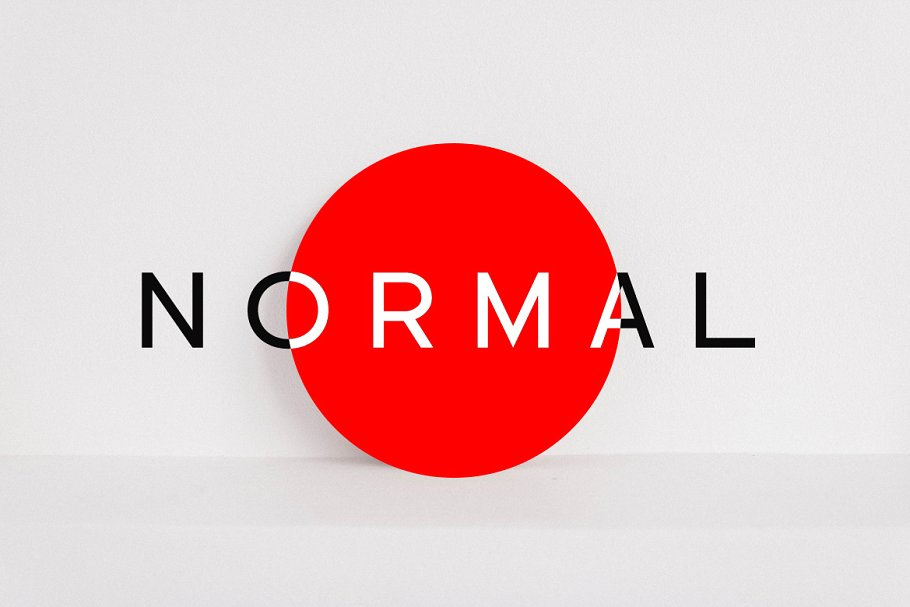
Normal Font
Normal Font is perfect for everyday business communications, standard corporate documentation, reliable office environments, practical service providers, straightforward consulting firms, and dependable professional organizations. Its balanced character makes it ideal for accounting practices, administrative services, general contractors, standard healthcare providers, regular educational institutions, and any project requiring trustworthy reliability with unpretentious professionalism and everyday excellence appeal.
This font is exciting because it celebrates the power of consistency and dependable quality while delivering exceptional functionality for organizations that value reliability over flashiness and substance over style. The thoughtfully balanced letterforms demonstrate that excellence doesn't require elaborate decoration, creating typography that feels trustworthy, accessible, and genuinely useful for audiences who appreciate honest communication and straightforward professional service.
The Normal Font family typically includes Light, Regular, Medium, and Bold weights with practical alternates, reliable ligatures, and straightforward elements that enhance its dependable personality. This comprehensive collection provides business professionals with versatile tools for creating trustworthy brand systems that maintain consistent quality while offering flexibility for various standard applications requiring genuine reliability and practical market positioning.
Whether you're developing identity systems for everyday service providers, creating materials for standard business operations, or designing communications for dependable professional organizations, Normal Font Free Download delivers the reliable consistency and practical appeal that connects with audiences seeking straightforward quality and honest value. Its trustworthy presence ensures dependable brand recognition across digital platforms and print materials, making it perfect for websites, mobile applications, and professional campaigns that celebrate everyday excellence, reliable service, and the fundamental importance of consistent quality with contemporary practicality and authentic professional dependability.